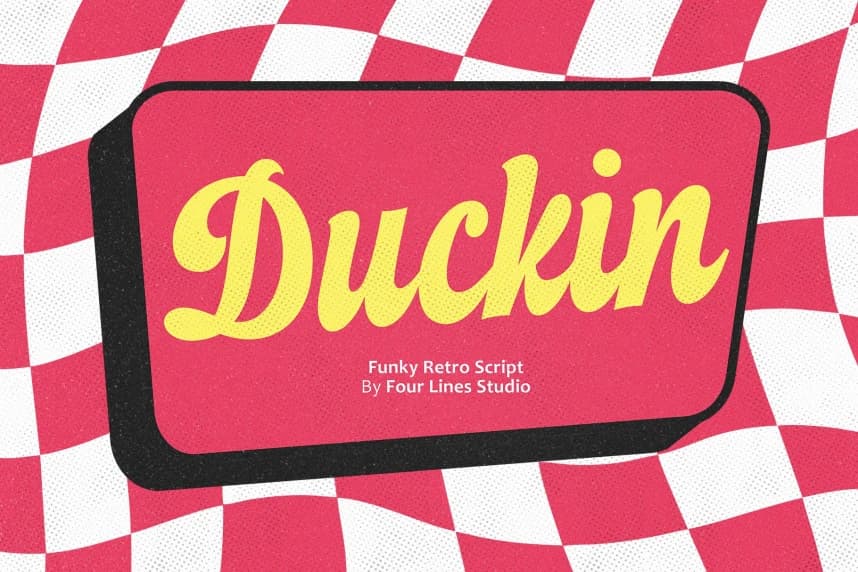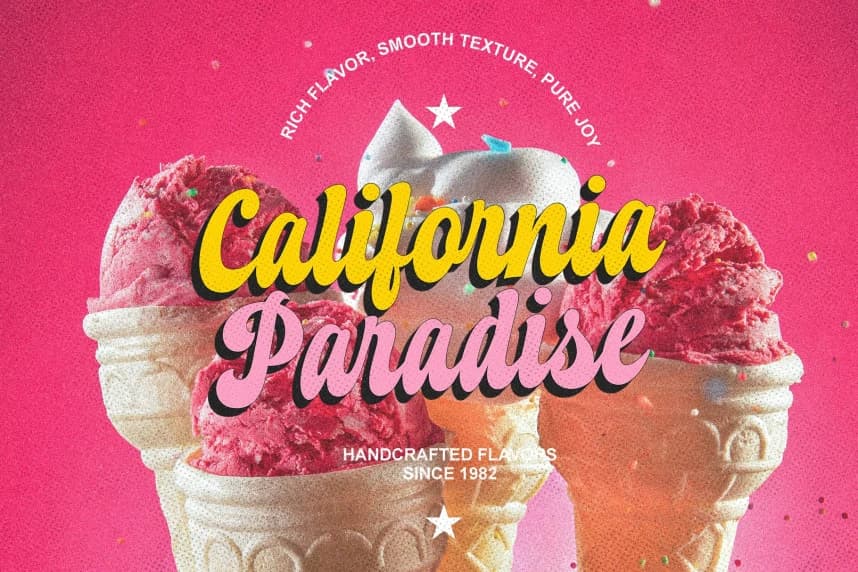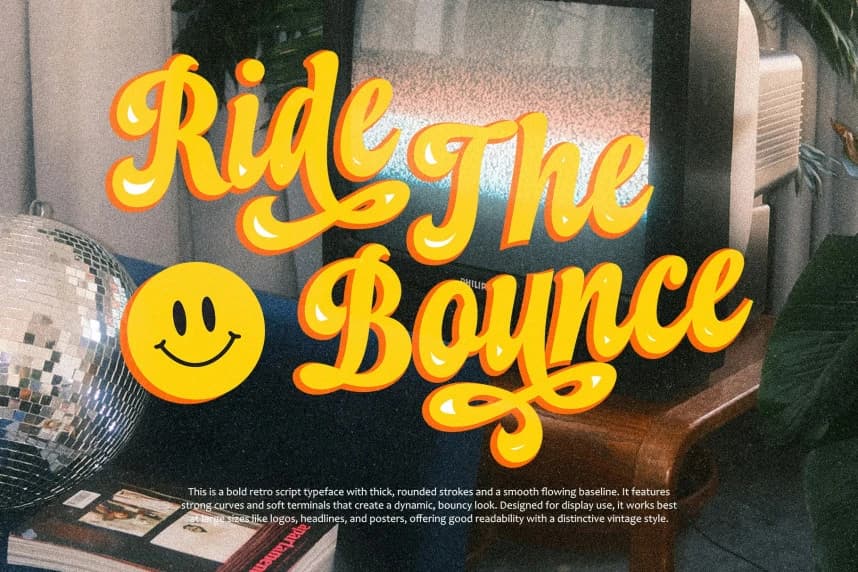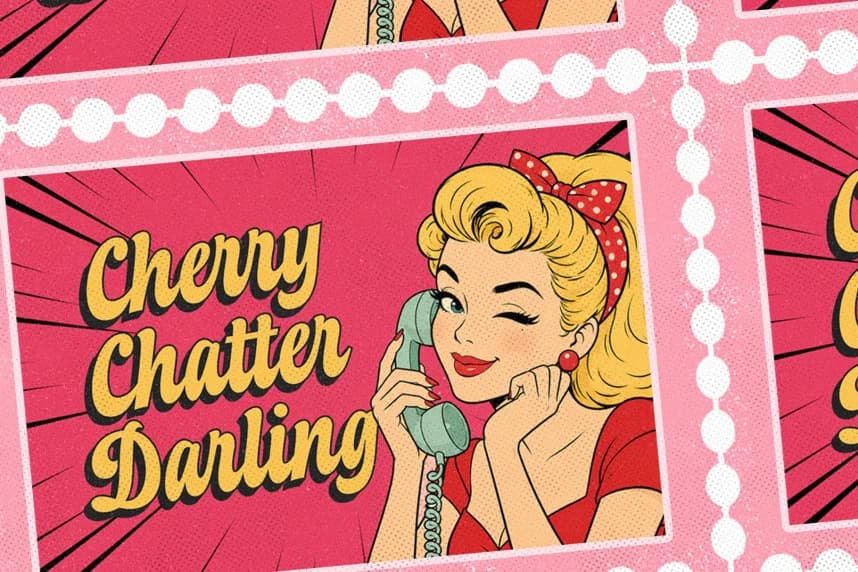
Duckin Script Font
Duckin Script Font is a retro-style script font featuring bold characters, dynamic flow, and playful letterforms. It combines classic vintage aesthetics with a fun groovy touch, making it perfect for designs that aim to stand out with strong personality and visual impact.
Duckin Script